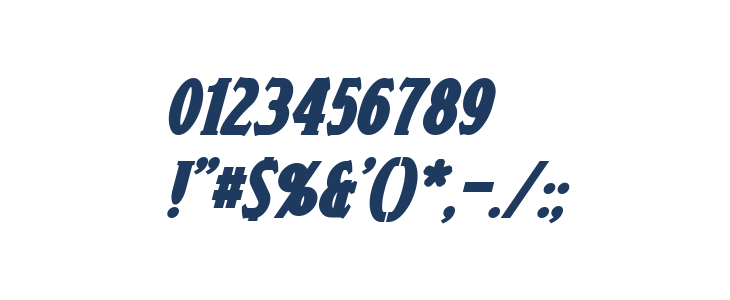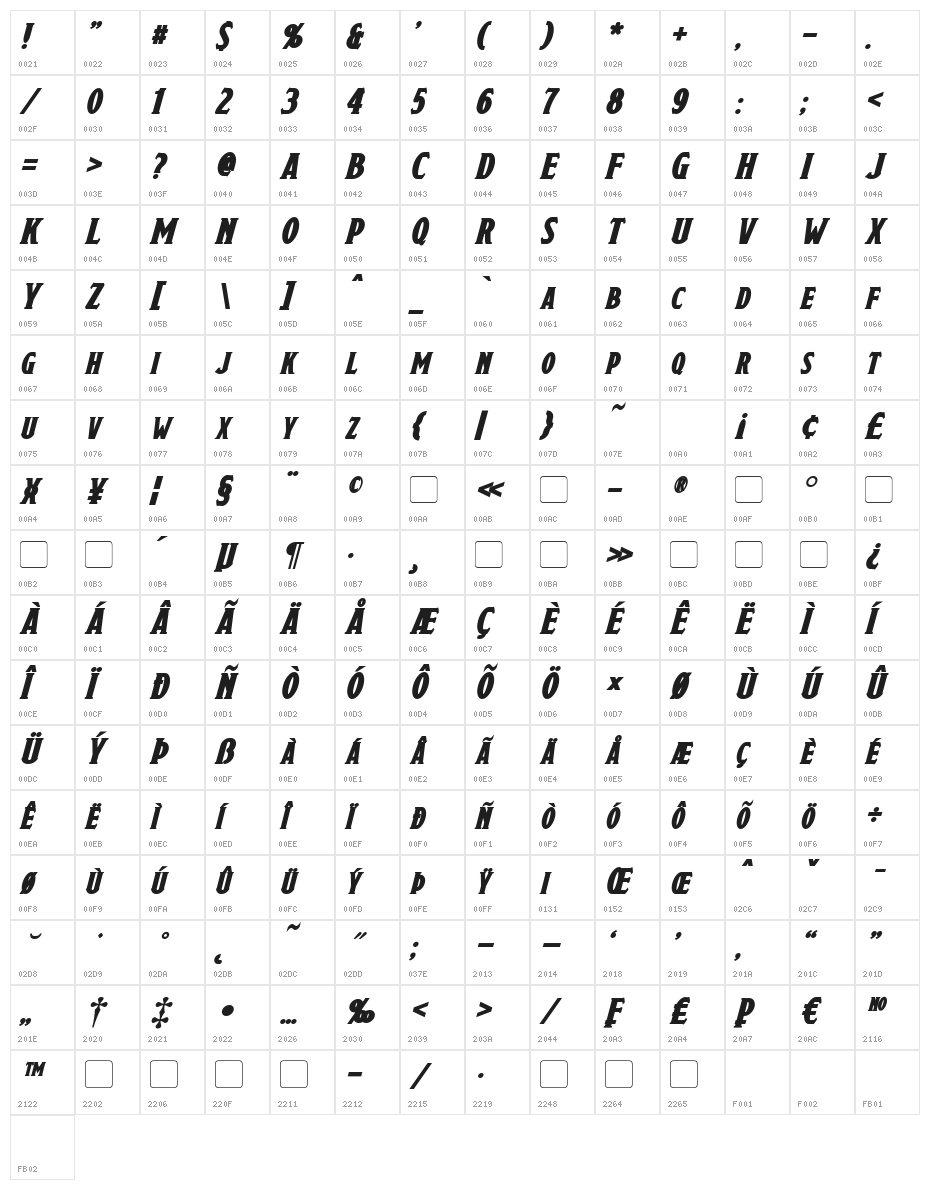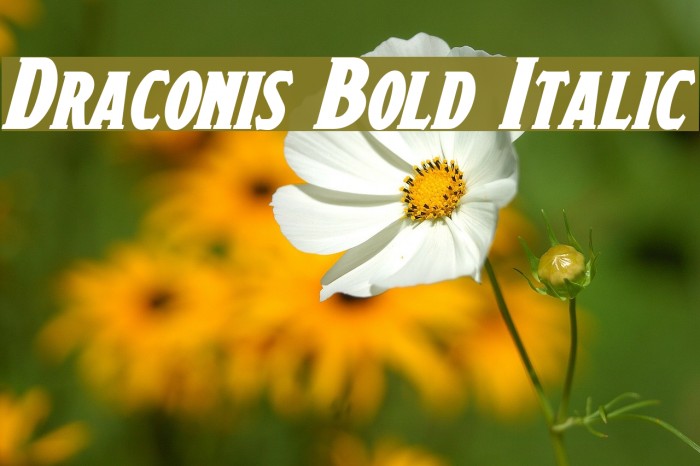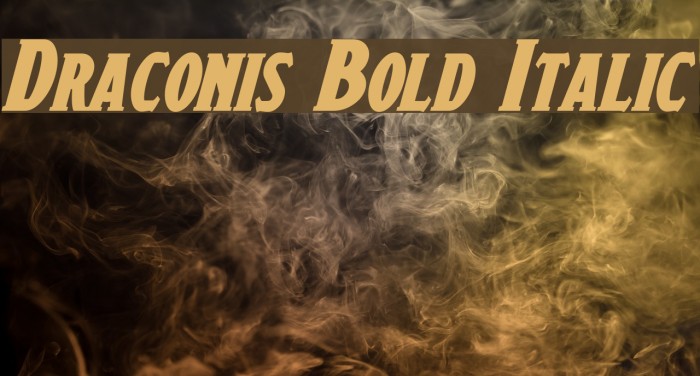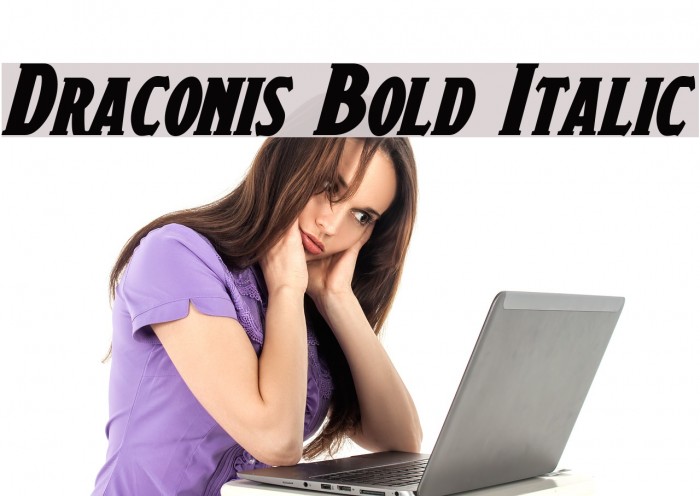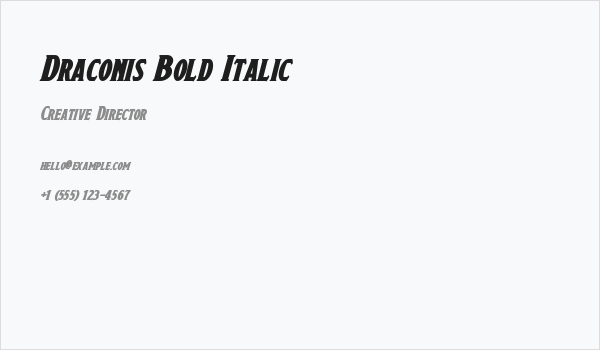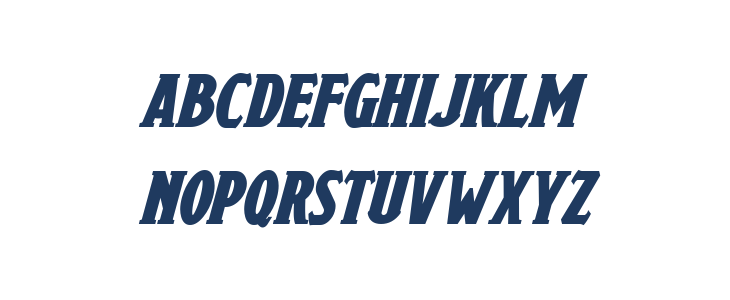
Draconis Bold Italic Font
Draconis Bold Italic Description
This font features a bold and italicized style, characterized by its strong, dynamic presence. The letters are sharply angled, giving them a sense of motion and energy. The uppercase and lowercase characters maintain a consistent slant, enhancing the italic effect. The numerals and special characters follow the same bold and italicized design, ensuring uniformity across all glyphs. The font's strokes are thick, providing a high contrast that makes it highly legible and impactful. Its overall design is modern and assertive, making it suitable for projects that require a strong visual statement.
| Proposed Projects | Ideal for branding, headlines, posters, and any design needing a bold statement. |